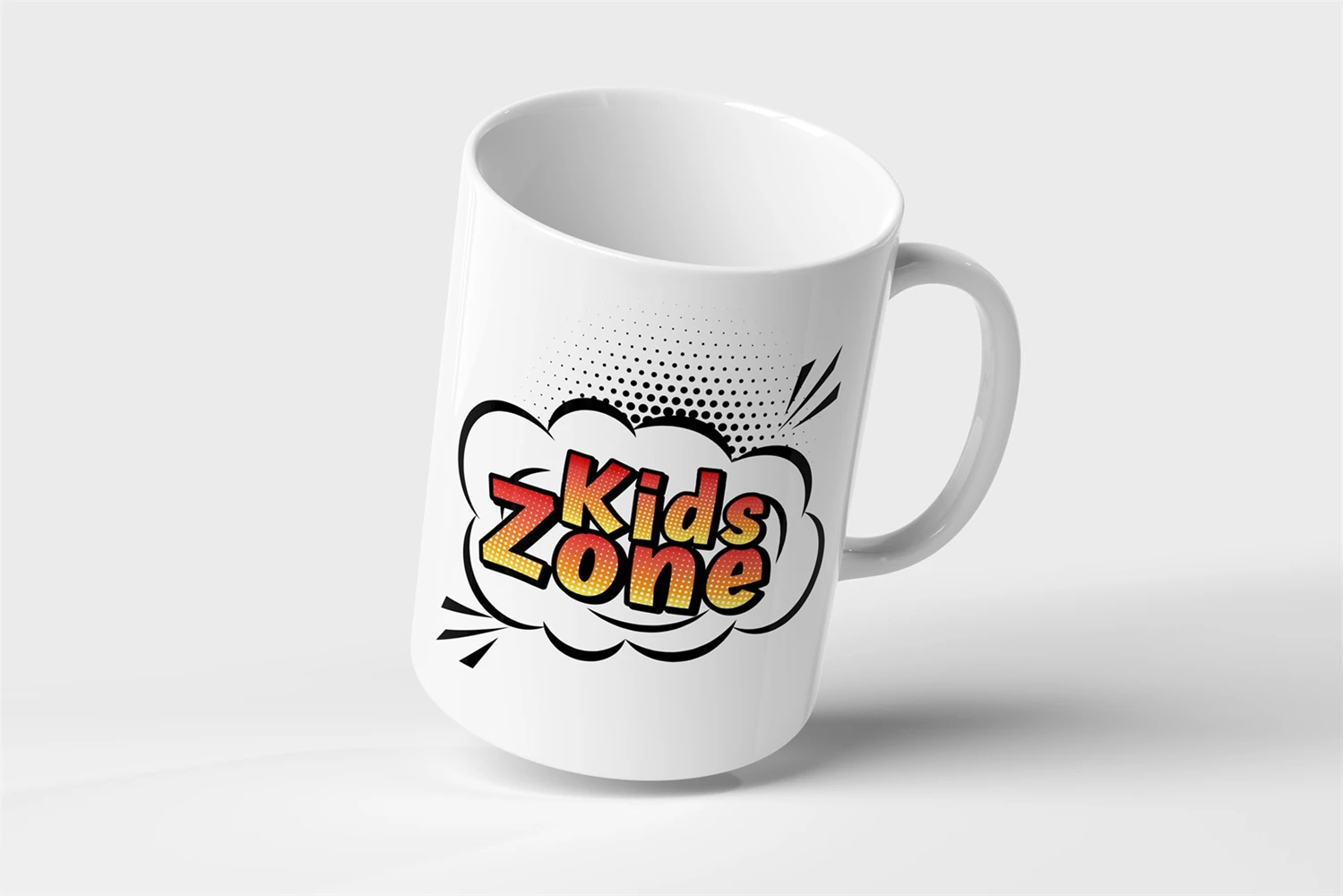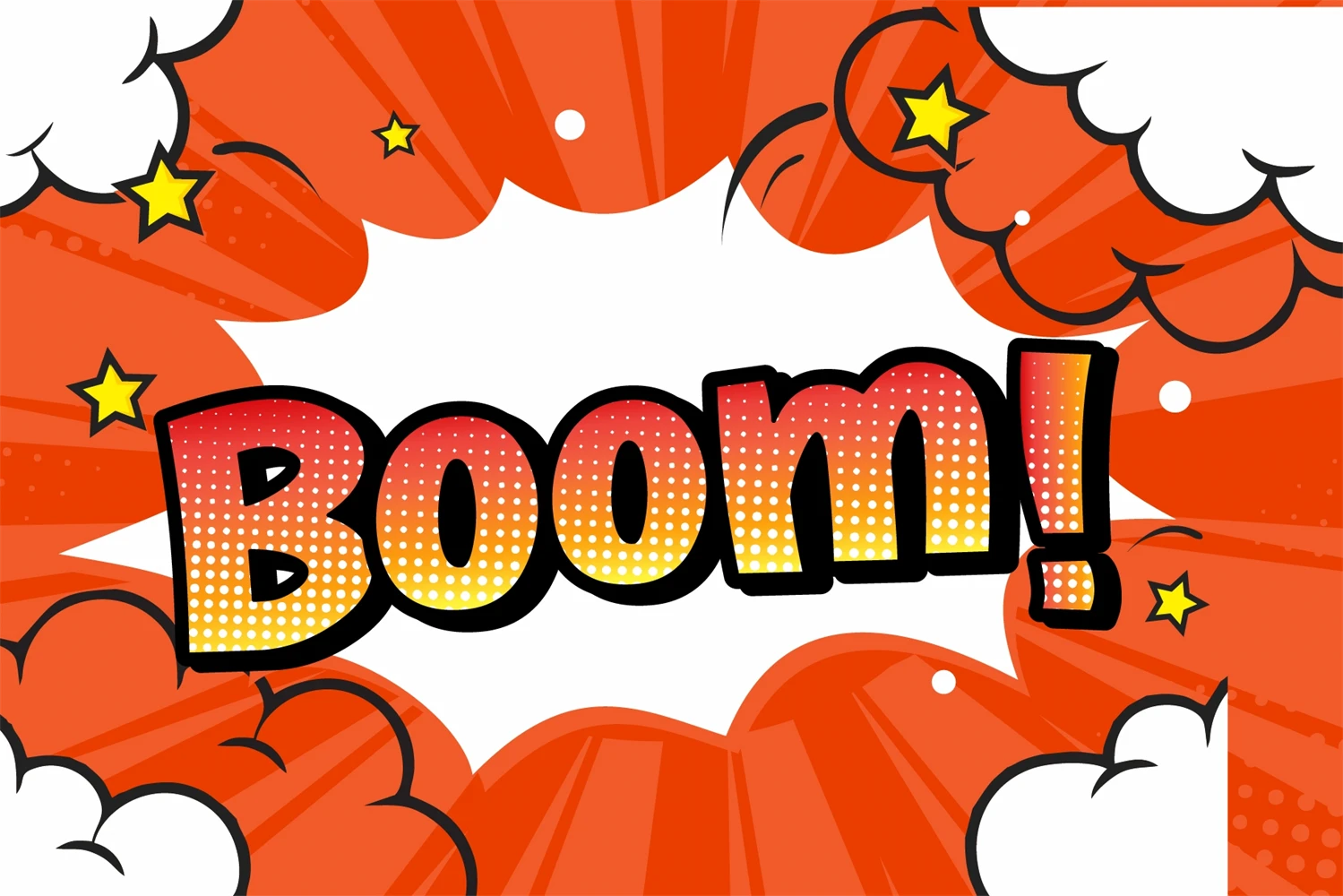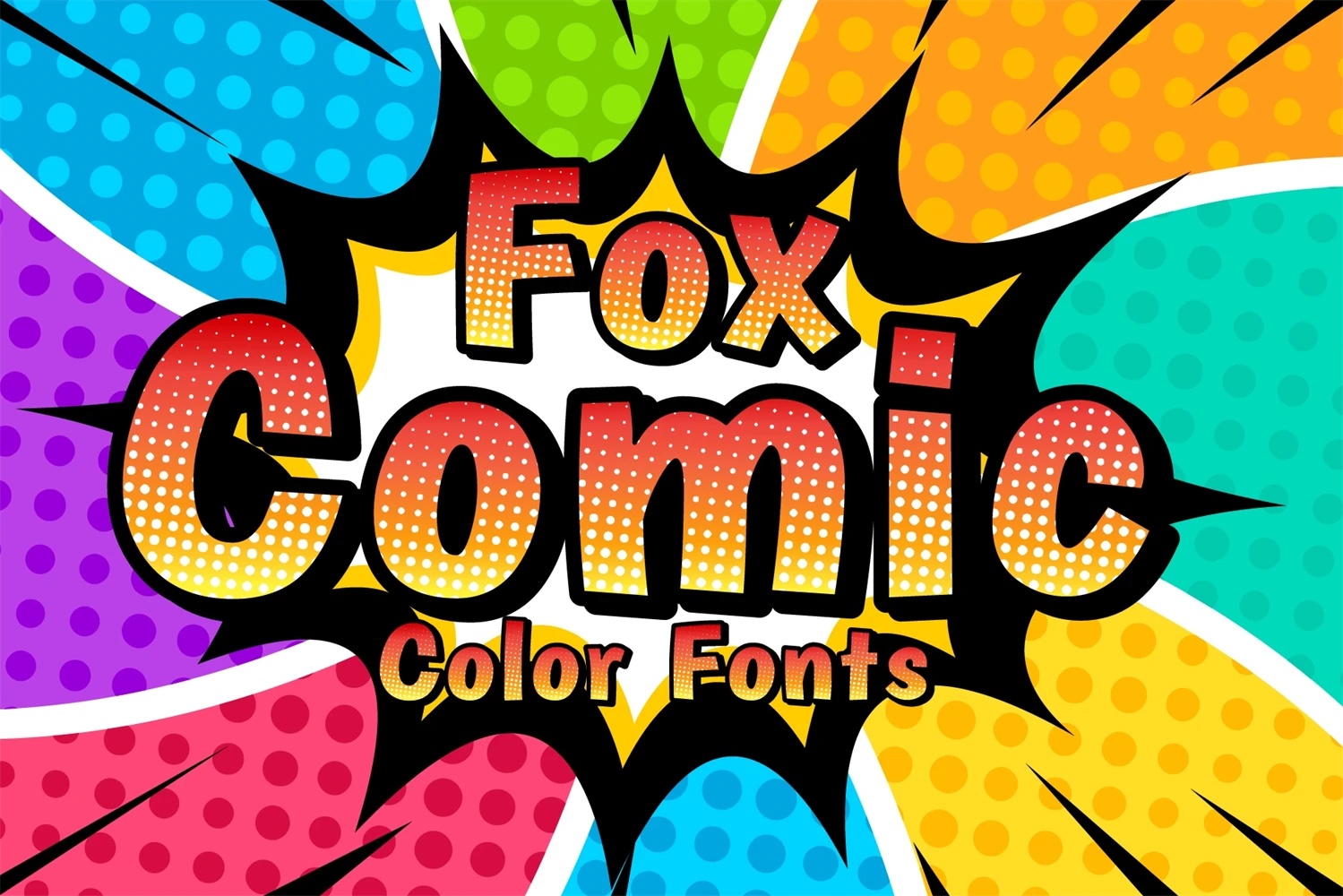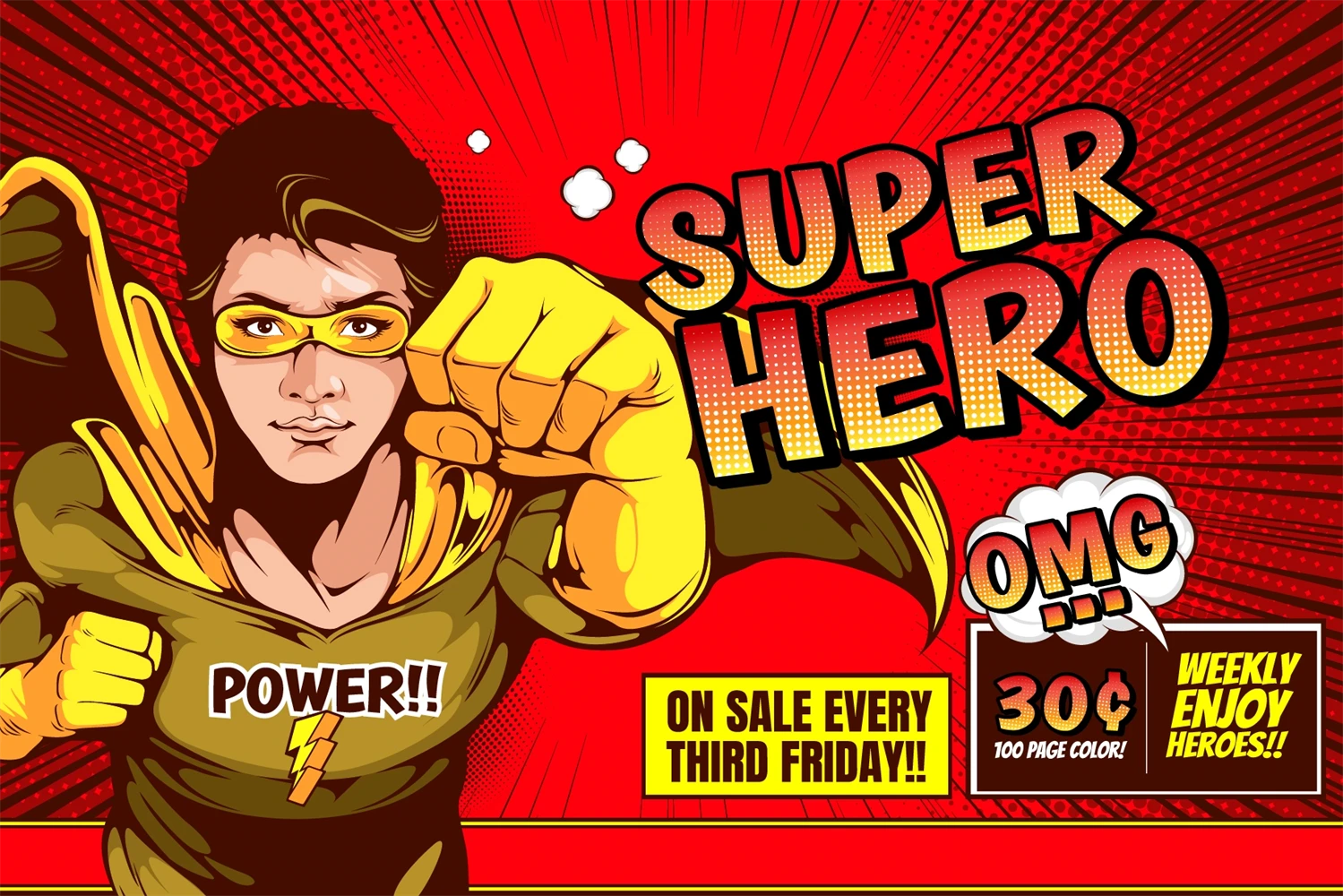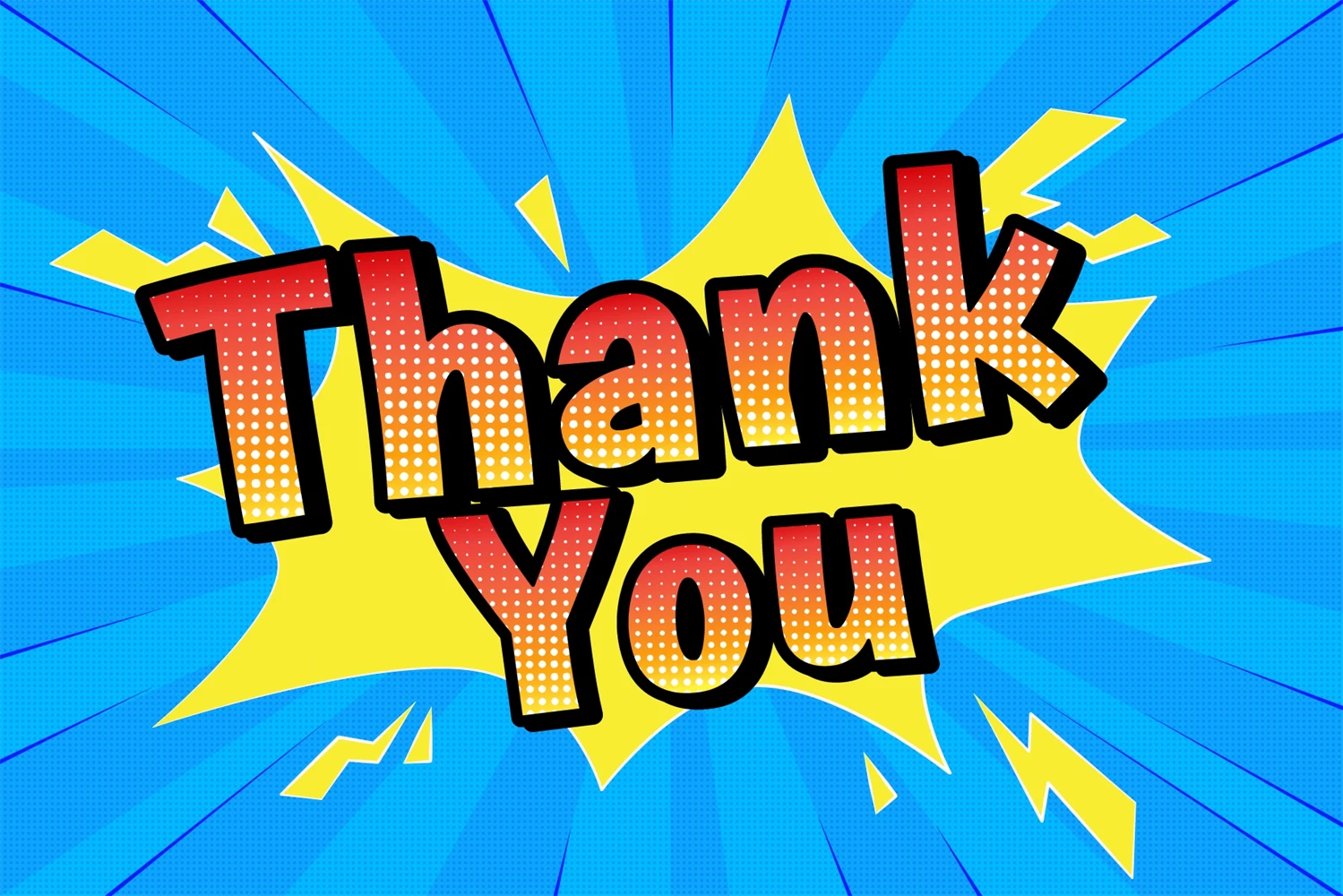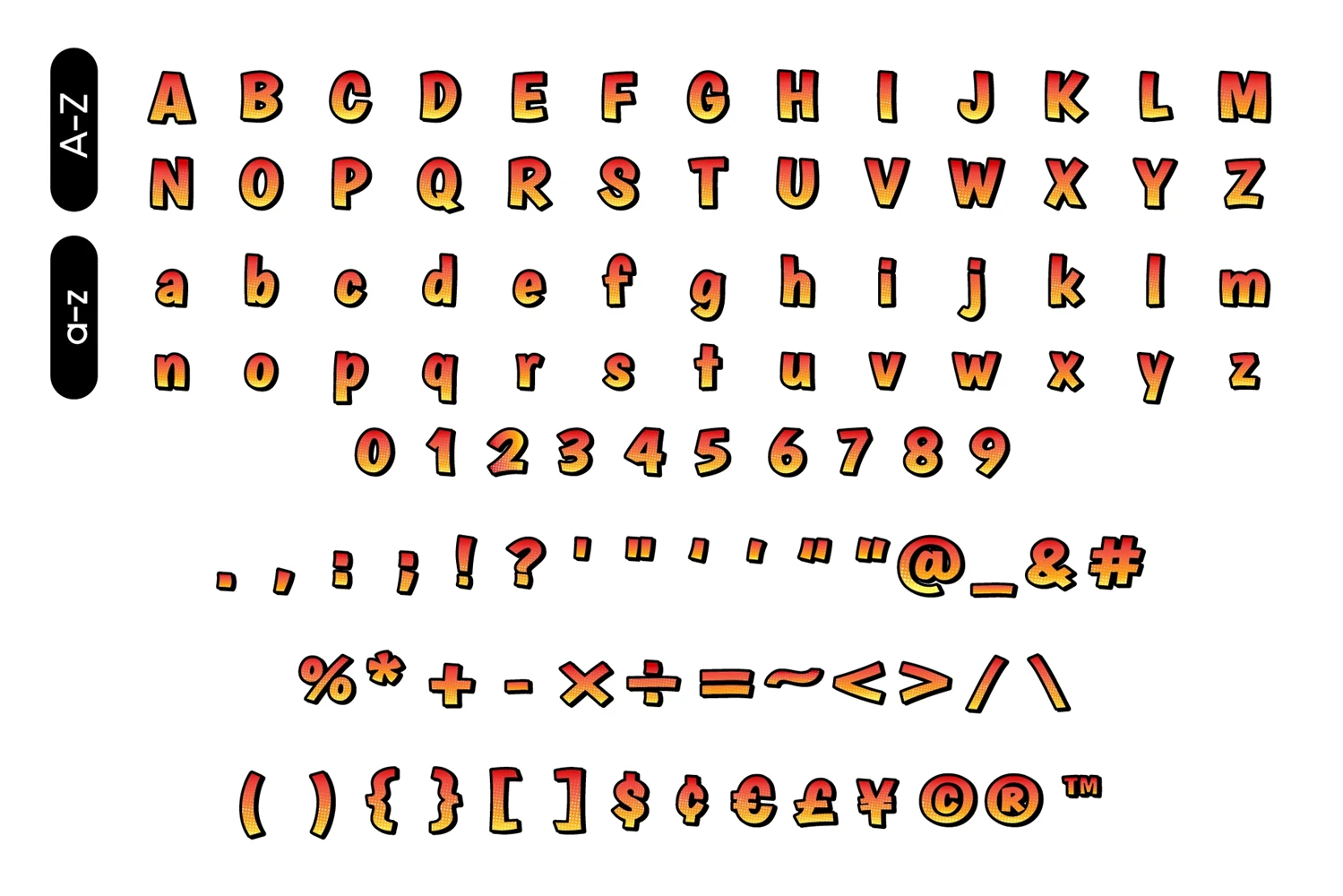
Fox Comic is a cool and fun Color font. It is the perfect font for titles or words needing a more dramatic emphasis. Whatever the topic, this font will be a wonderful asset to your font library, as it has the potential to enhance any creation.